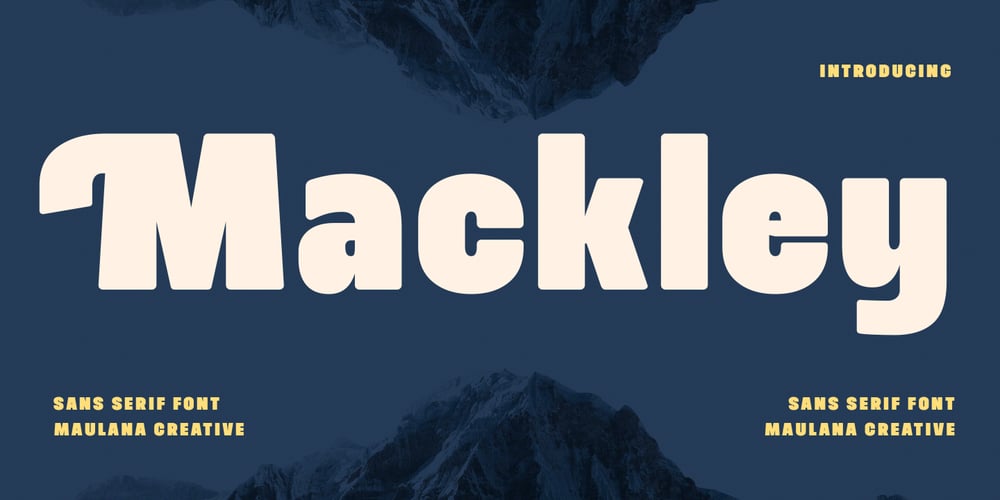
MC Mackley Font Family was designed by Gilang Maulana and published by Maulana Creative. MC Mackley contains 1 styles and family package options. Mackley is a round extrabold sans display font. XBold stroke, fun character with a bit of ligatures and stylistic. To give you an extra creative work. Mackley font support multilingual more than 100+ language. This font is good for logo design, Social media, Movie Titles, Books Titles, a short text even a long text letter and good for your secondary text font with script or serif. Make a stunning work with Mackley font.Cheers,Maulana Creative